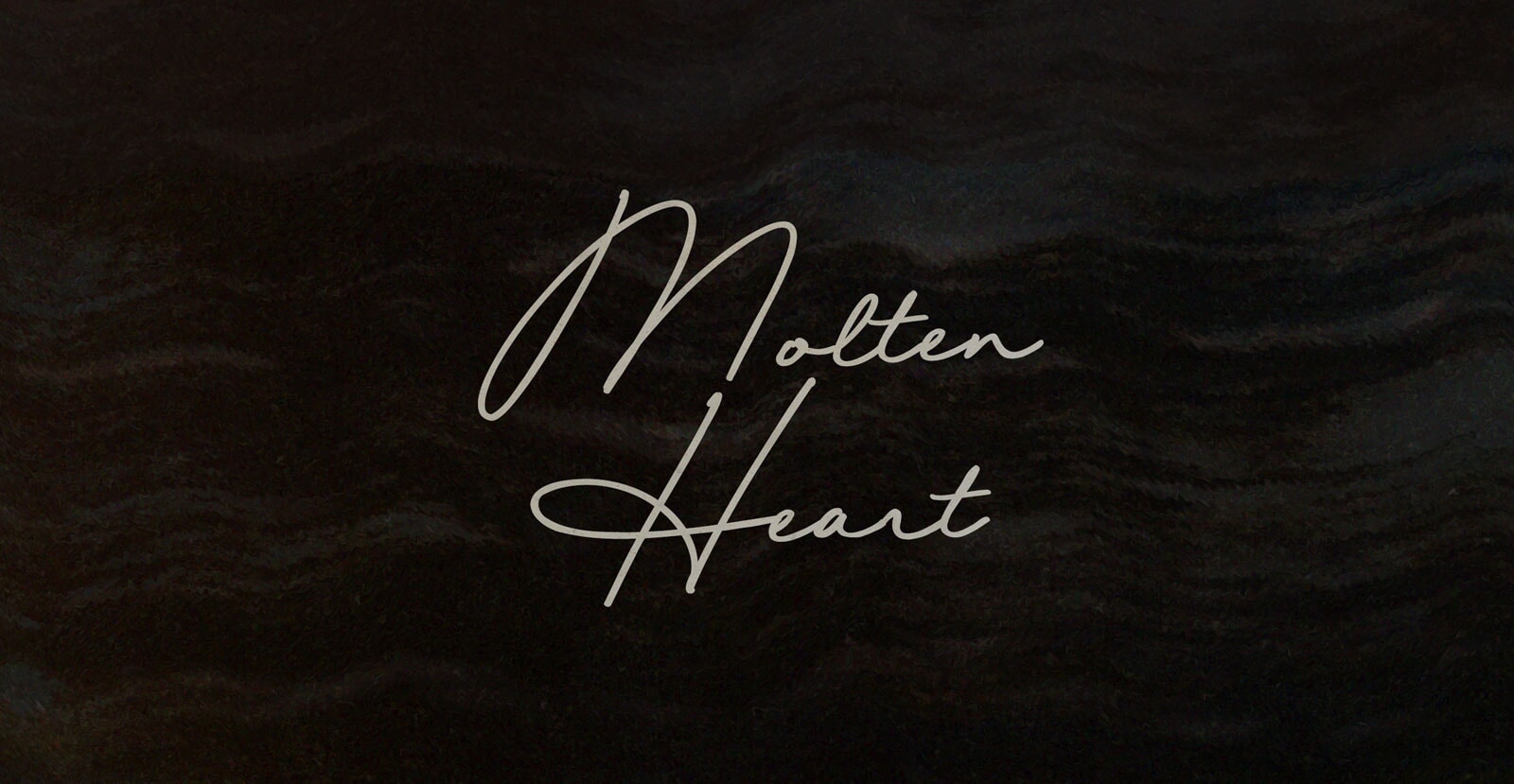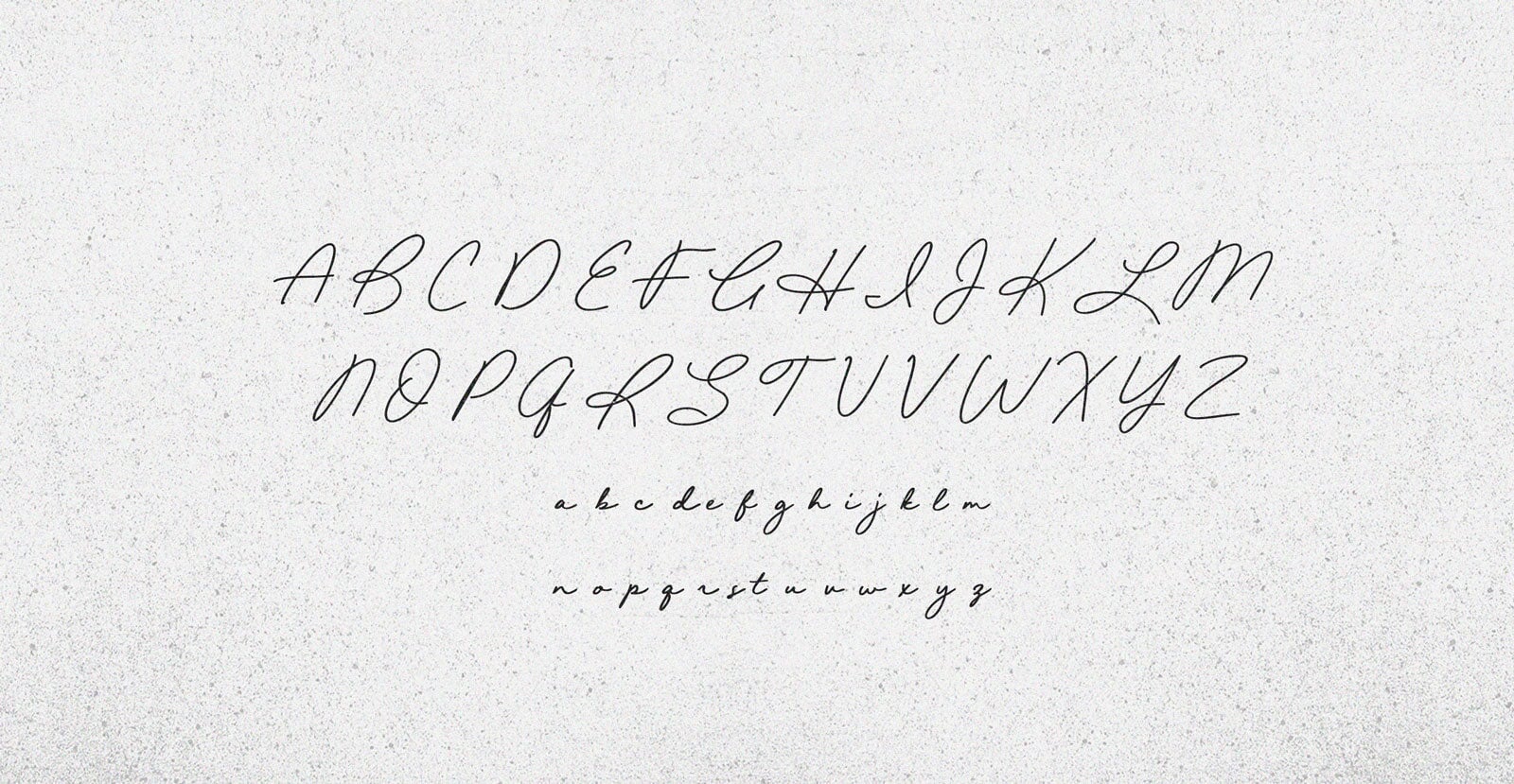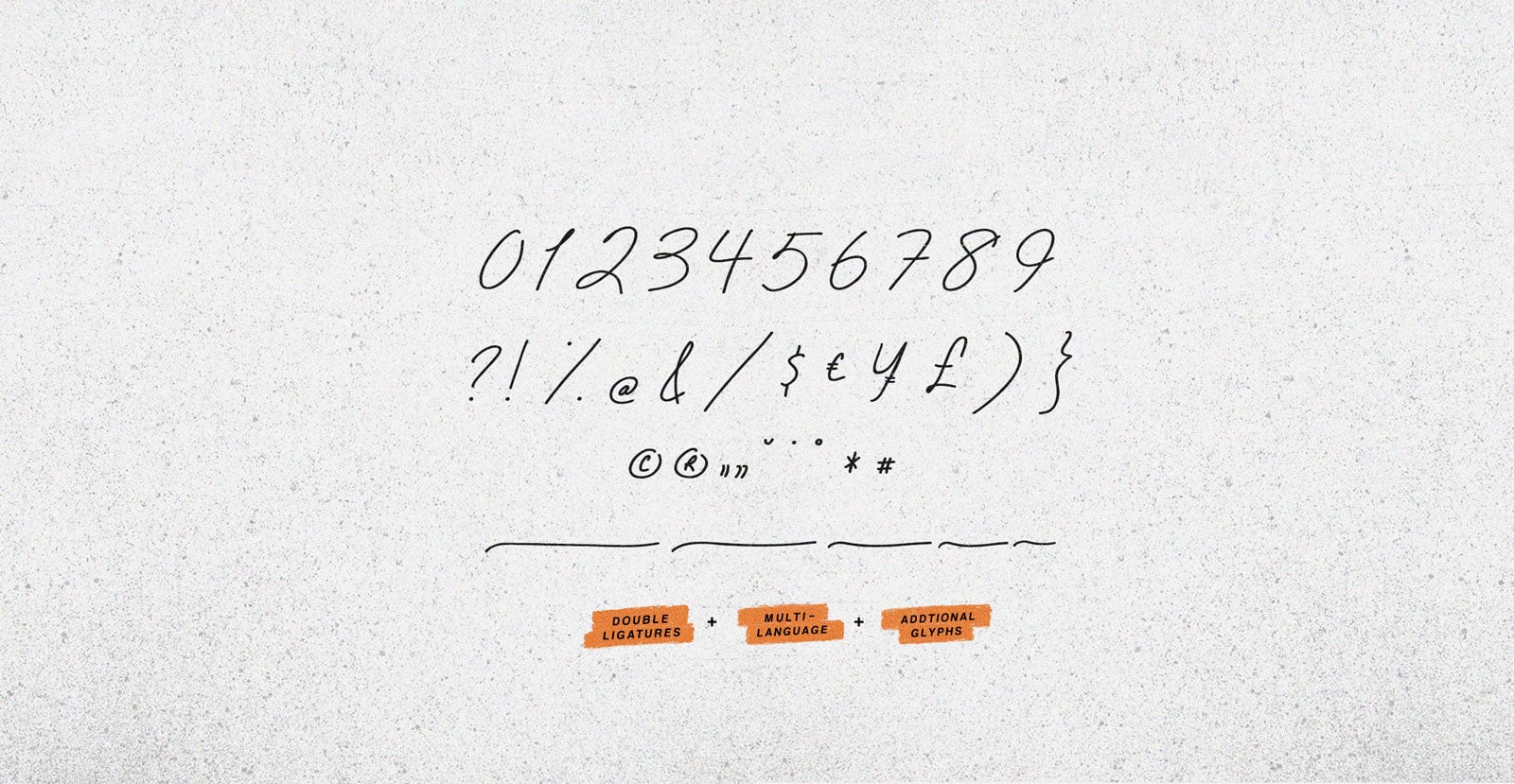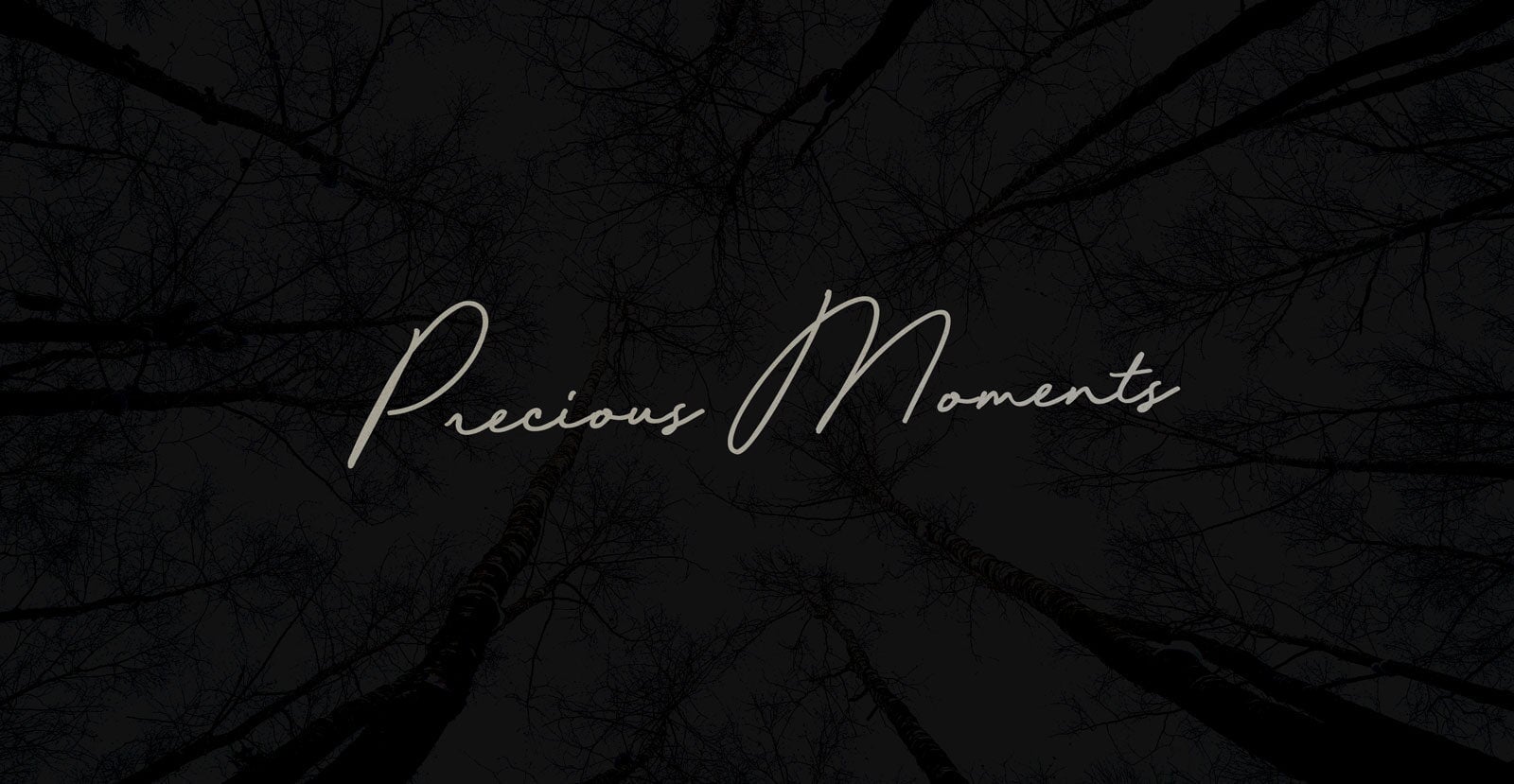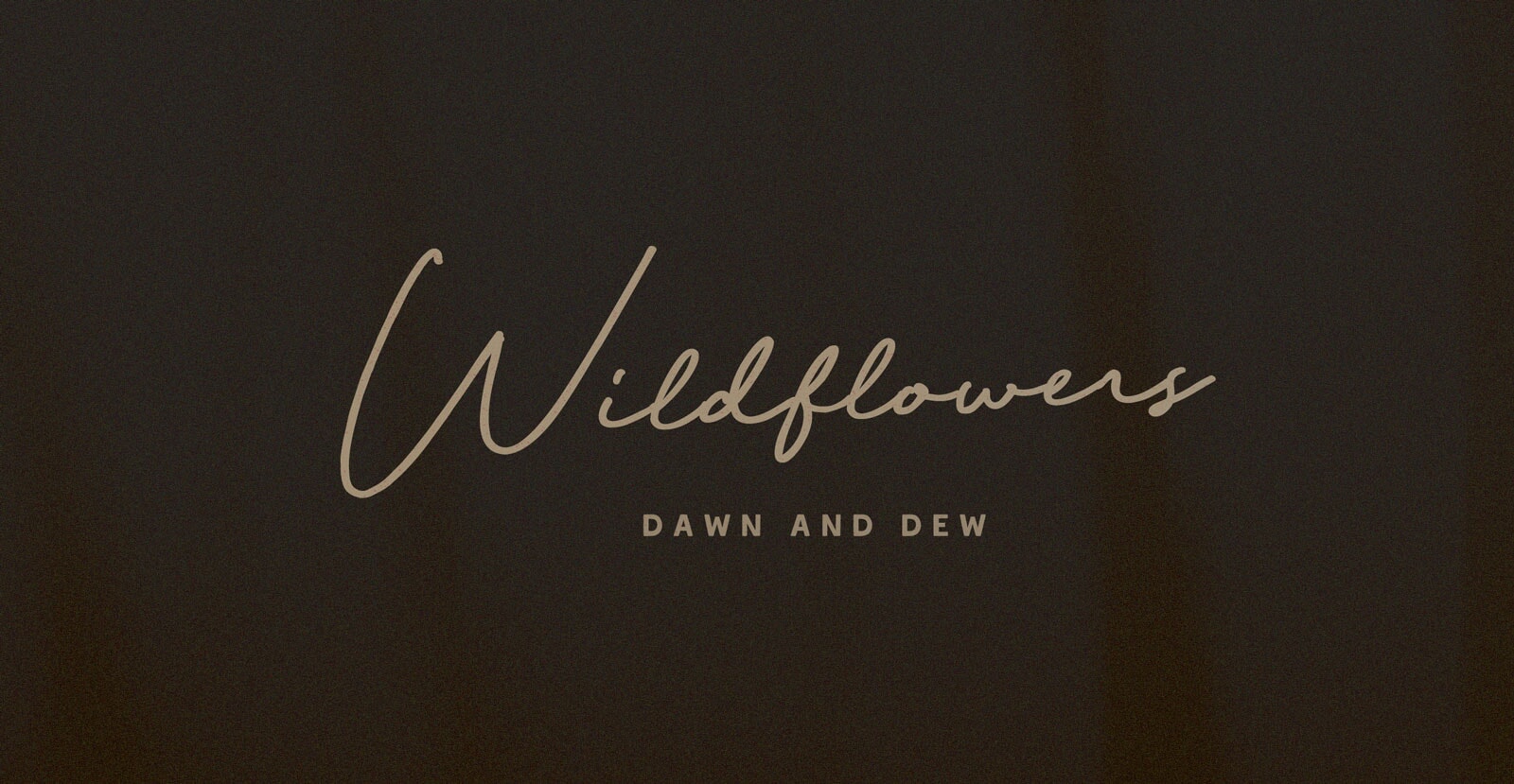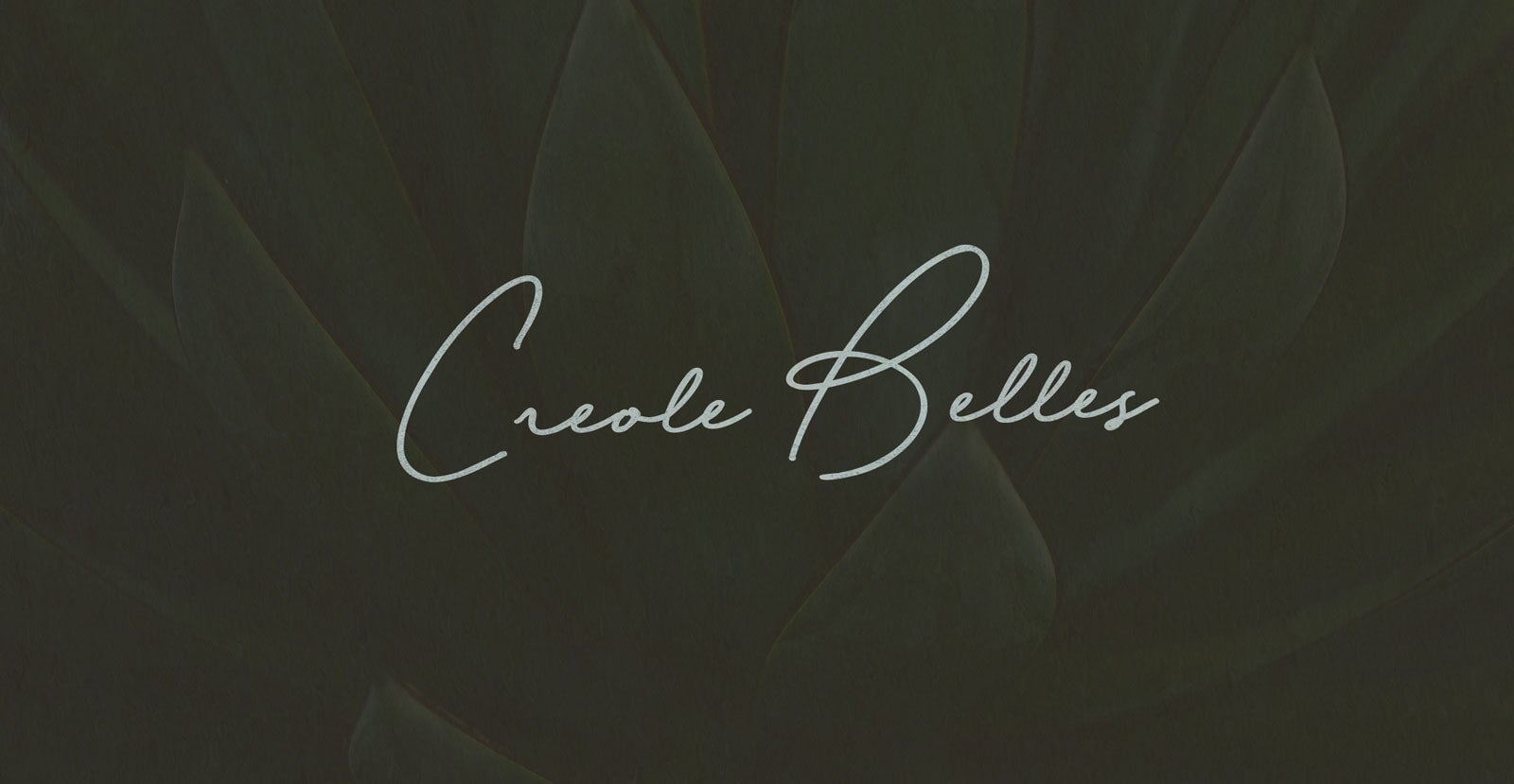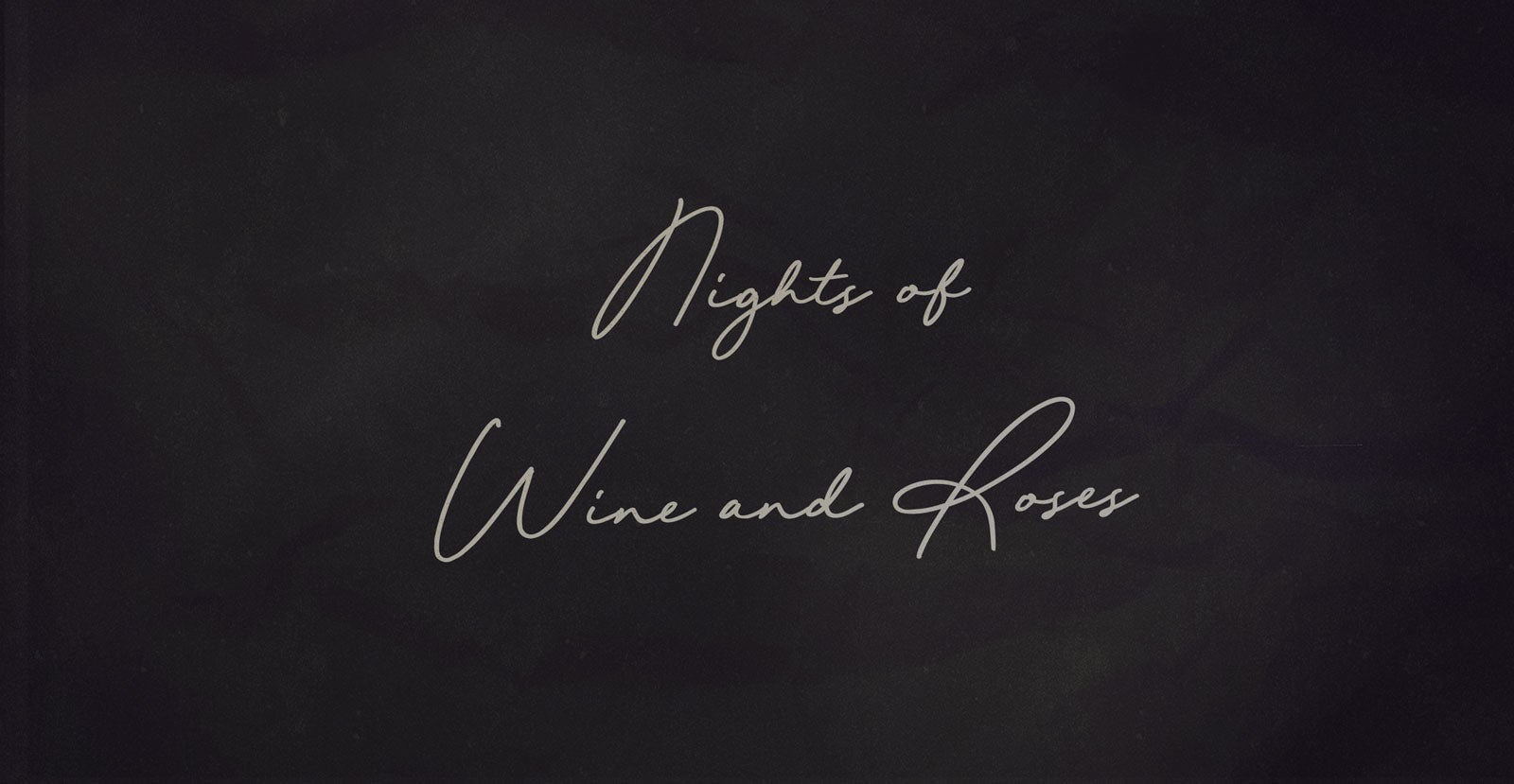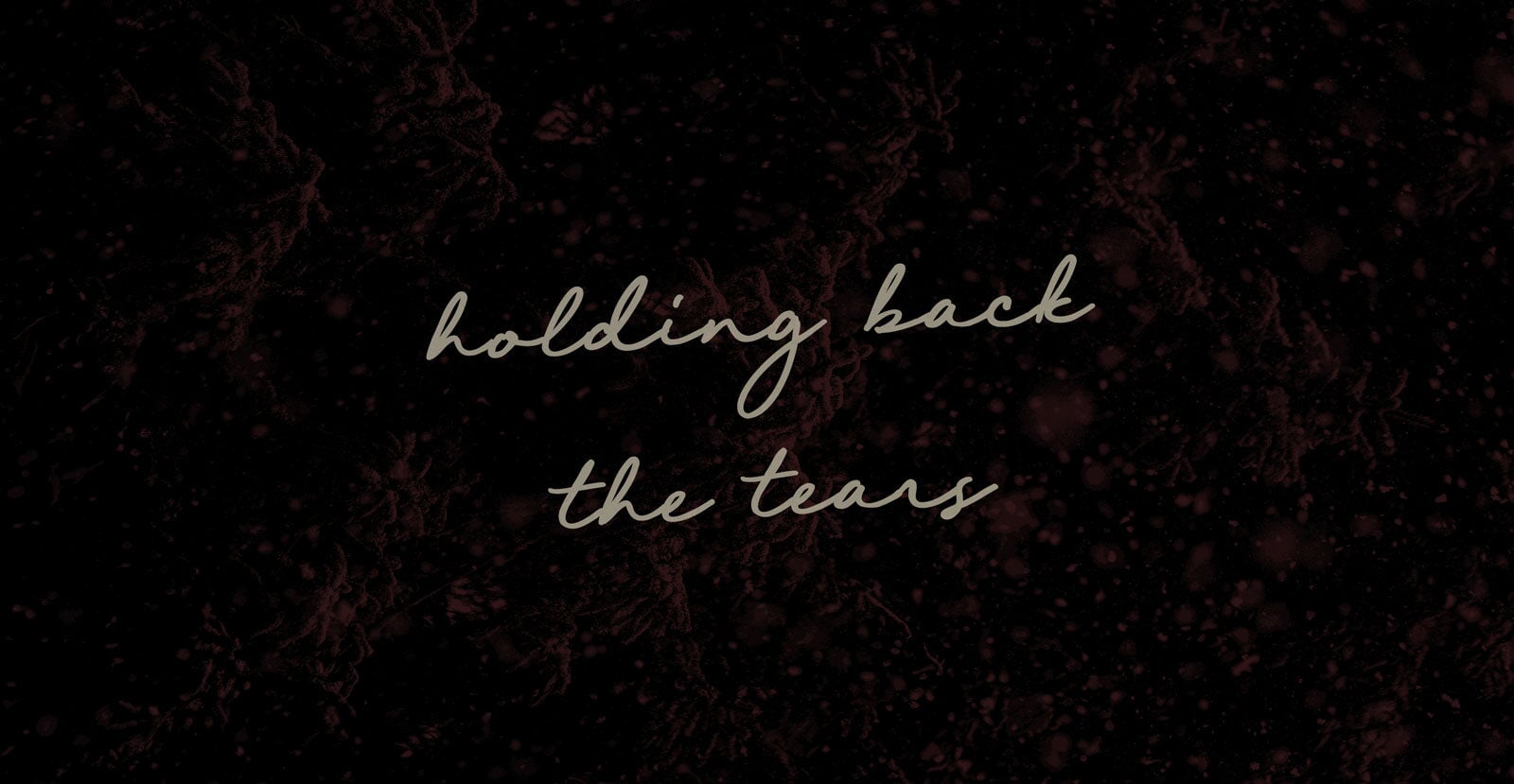
Molten Heart
Handwritten Pen Script Font
An experience beyond explanation. Only those who dare to explore will begin to understand its true power. It pulses with an energy that draws you in, yet its origins remain unknown. Step into the unknown, and uncover the hidden forces at its core.